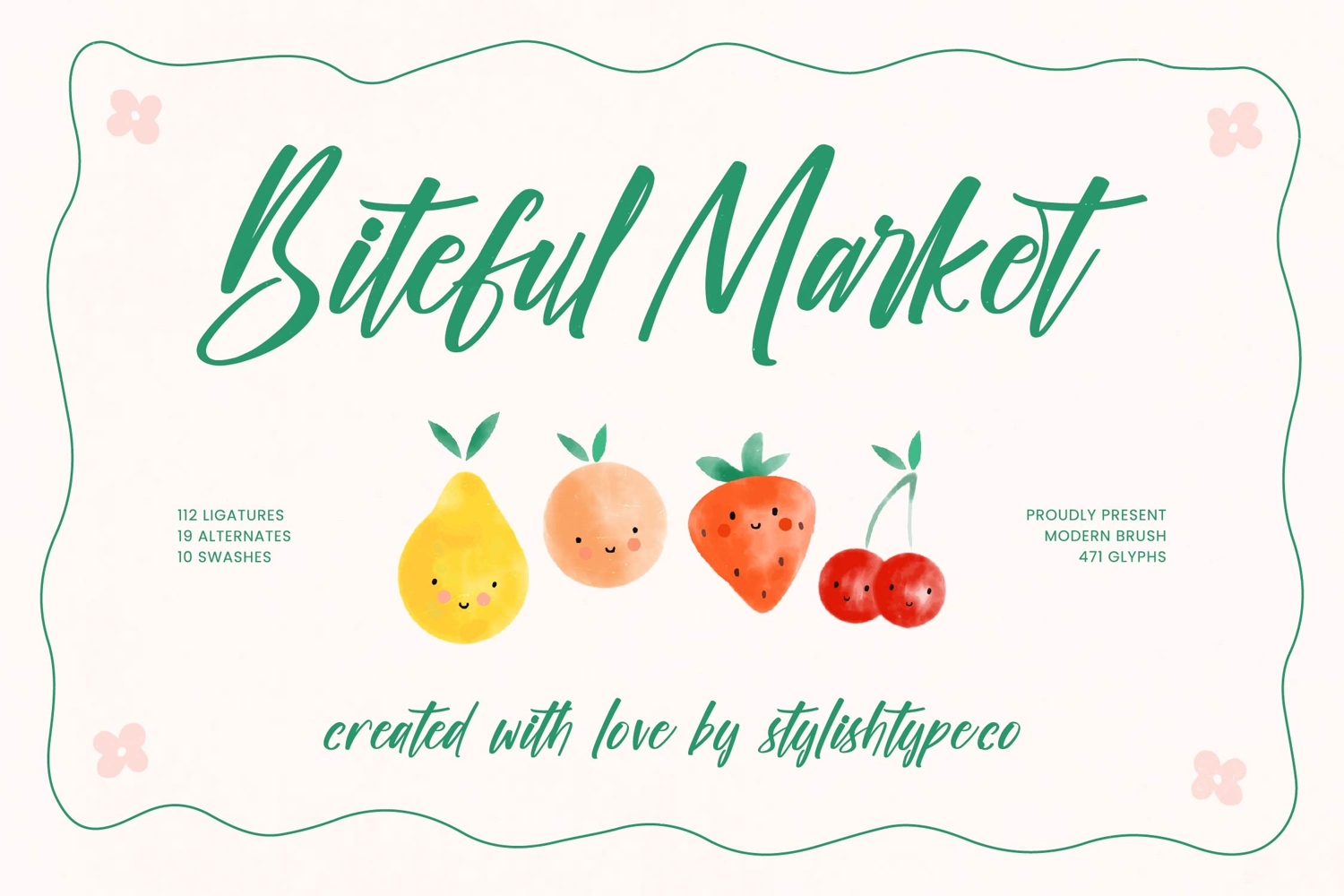
Biteful Market - Modern Brush Font
Biteful Market Italic
Biteful Market
Inject instant warmth and authenticity into your designs with Biteful Market - Modern Brush Font. This beautifully expressive script captures the joyful texture of a genuine brushstroke, delivering an immediate sense of handcrafted charm. Its fluid baseline and varying weights create a dynamic, energetic rhythm that is both approachable and memorable. It perfectly balances a modern, clean structure with an irresistible, organic flow, making it an essential tool for designers seeking personality in their high-impact visuals.